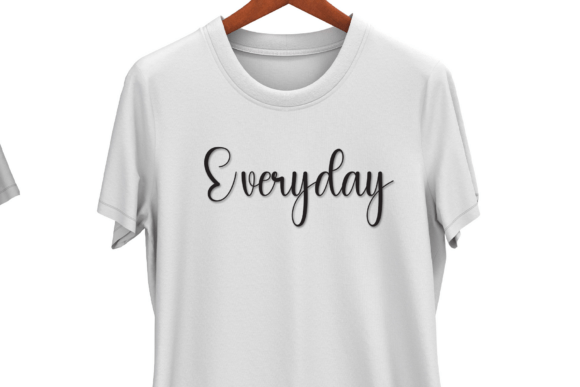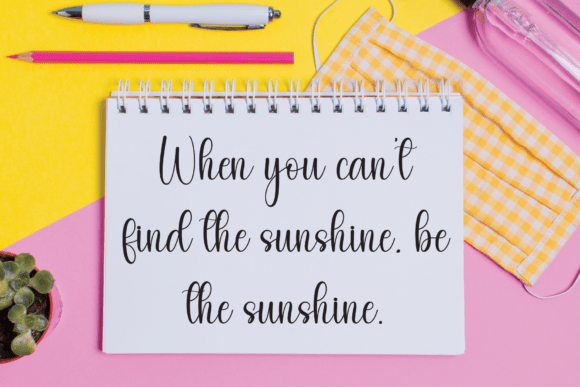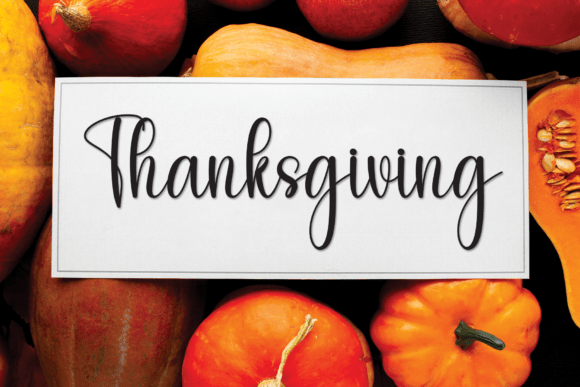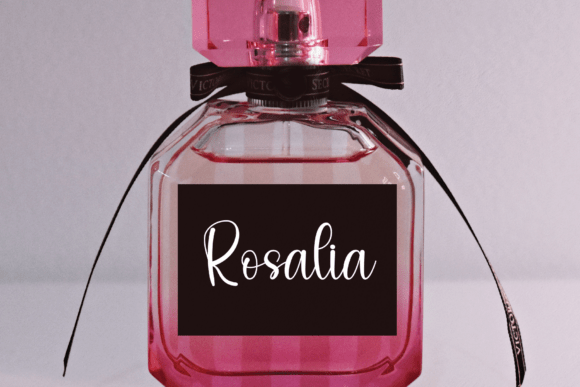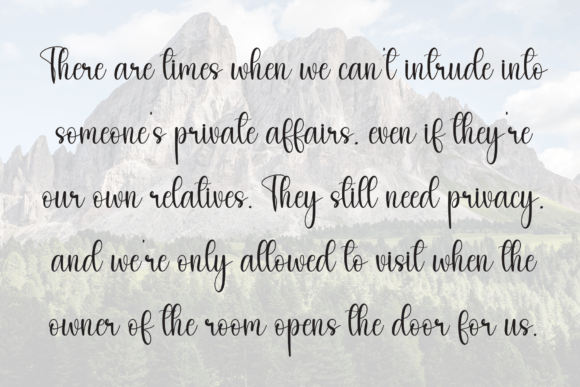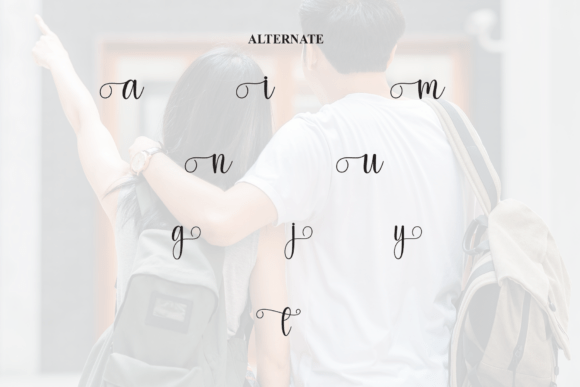
Introducing Amstay Font: Elevate Your Designs with Elegant Script Handwriting
Are you looking for a font that can add a touch of sophistication and whimsy to your designs? Look no further than Amstay, a captivating new script handwriting font that is sure to make your projects stand out. With its elegant, oversized swashes and smooth, monoline stroke, Amstay is perfect for designers and crafters seeking to convey luxury, intimacy, and heartfelt style.
The Characteristics of Amstay Font
Amstay is a handmade typeface that features a range of characteristics that set it apart from other fonts. Its elegant, oversized swashes wrap dynamically around the letterforms, creating a sense of fluidity and movement. The font also features charming terminal swirls that add a touch of whimsy and romance to any design. The connections between letters are smooth and fluid, enhancing the natural, yet refined, penmanship feel.
One of the standout features of Amstay is its emphasis on beautiful swash alternates and flourishing capital letters. These decorative elements make it easy to add a touch of luxury and sophistication to any design, and are perfect for use in high-end logotypes, wedding invitations, and personalized gifts.
Uses for Amstay Font
Amstay is a versatile font that can be used in a wide range of design projects. Some of the most popular uses for this font include:
• Wedding invitations and stationery: Amstay’s elegant swashes and charming terminal swirls make it perfect for wedding invitations, save-the-date cards, and other wedding-related stationery.
• Personalized gifts: Add a touch of luxury and sophistication to personalized gifts such as monogrammed tote bags, engraved jewelry, and customized home decor.
• High-end logotypes: Amstay’s elegant, oversized swashes make it perfect for use in high-end logotypes and branding materials.
• Greeting cards: Amstay’s whimsical flair and romantic feel make it perfect for use in greeting cards for special occasions such as Valentine’s Day, Mother’s Day, and Christmas.
Why Choose Amstay Font?
So why choose Amstay font for your next design project? Here are just a few reasons:
• Elegant and sophisticated: Amstay’s elegant swashes and smooth, monoline stroke make it perfect for designers seeking to convey luxury and sophistication.
• Whimsical and romantic: Amstay’s charming terminal swirls and fluid connections make it perfect for designers seeking to add a touch of whimsy and romance to their designs.
• Versatile: Amstay can be used in a wide range of design projects, from wedding invitations to high-end logotypes.
Tips for Using Amstay Font
Here are a few tips for getting the most out of Amstay font:
• Experiment with swash alternates: Amstay’s beautiful swash alternates make it easy to add a touch of elegance and sophistication to any design. Experiment with different swash combinations to find the one that works best for your project.
• Use it sparingly: Amstay is a font that can quickly become overwhelming if overused. Use it sparingly to add a touch of elegance and whimsy to your designs.
• Pair it with contrasting fonts: Amstay pairs well with a range of fonts, from simple sans serifs to elegant serifs. Experiment with different font combinations to find the one that works best for your project.
Amstay font is a captivating new script handwriting font that is sure to elevate your designs to the next level. With its elegant, oversized swashes and smooth, monoline stroke, Amstay is perfect for designers and crafters seeking to convey luxury, intimacy, and heartfelt style. Whether you’re creating wedding invitations, personalized gifts, high-end logotypes, or greeting cards, Amstay is the perfect choice. So why wait? Download Amstay font today and start creating stunning pieces of handcrafted visual communication.